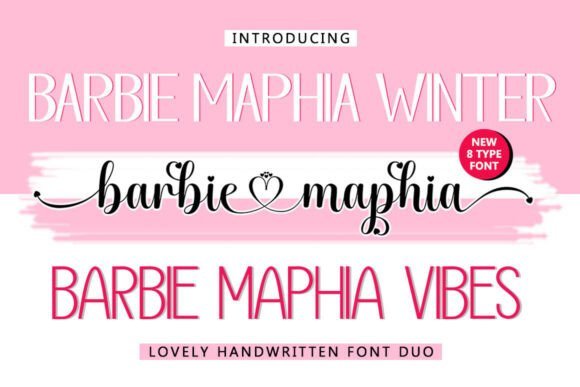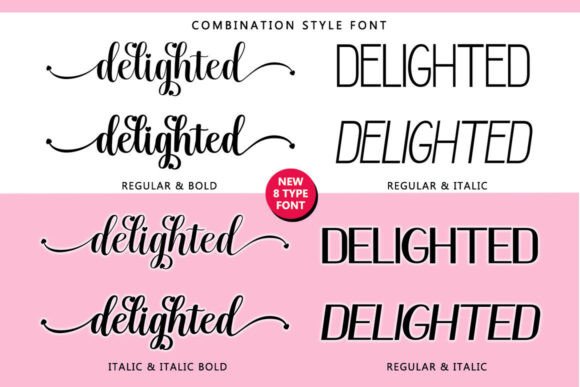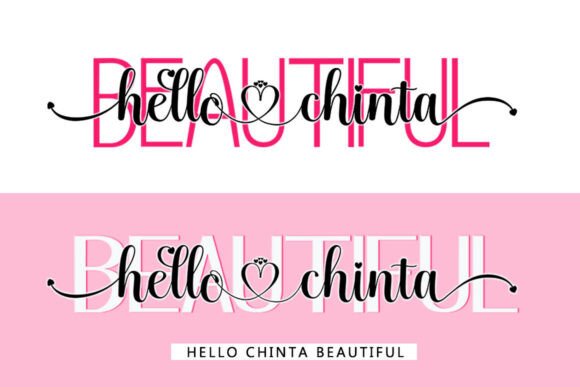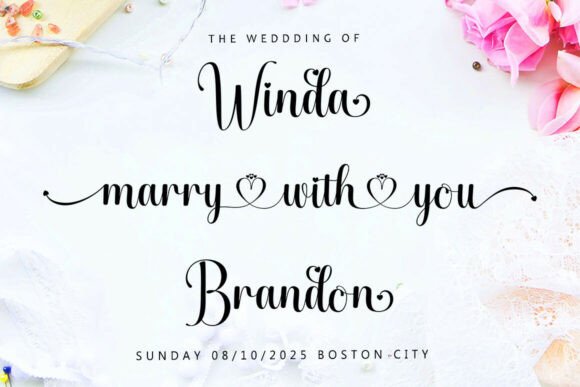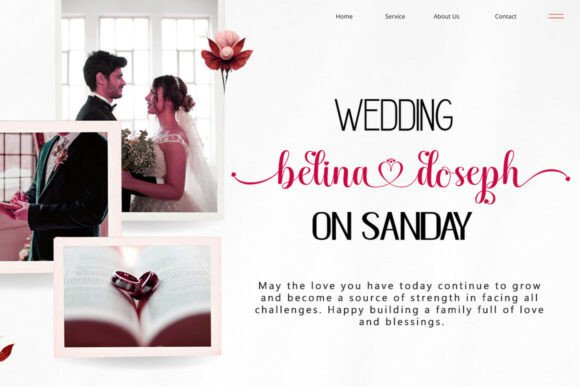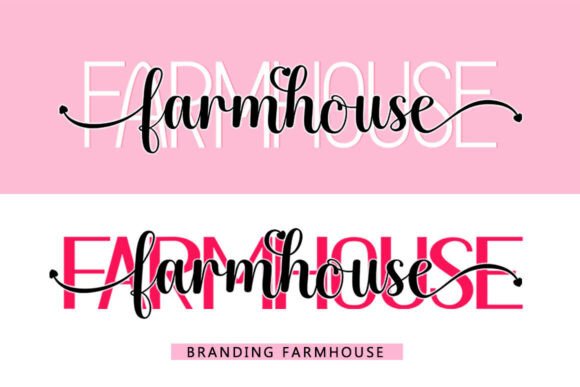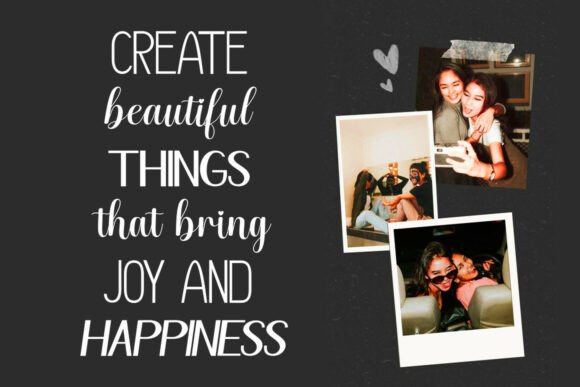
Unleashing the Magic of Barbie Maphia Font
Have you ever stumbled upon a design that immediately sparks your creativity and makes you feel like a kid in a candy store? For designers, this is a moment of pure bliss, and it’s exactly what happens when you lay eyes on the enchanting Barbie Maphia Font. This delightful duo of fonts is a masterful blend of modern and timeless elements, making it the perfect companion for any project that requires a touch of romance and whimsy.
The Barbie Maphia Font is a game-changer for designers, offering a unique combination of bold sans-serif typefaces and elegant, handwritten-style script fonts. This harmonious balance creates a visually appealing look that’s perfect for weddings, invitations, love themes, and feminine branding. Whether you’re a seasoned designer or just starting out, this font duo is sure to inspire your next creative project and leave a lasting impression.
- Font Style: A unique, hand-drawn font with a bold and playful feel, ideal for creative and artistic projects.
- Character Count: 250+ characters, including uppercase and lowercase letters, numbers, and punctuation marks.
- Unique Characteristics: The font features a mix of rounded and angular shapes, with a distinctive ‘barbie-inspired’ aesthetic that adds a touch of whimsy to any design.
Barbie Maphia Font Review
Overall, I was intrigued by the Barbie Maphia Font, but my experience was a mixed bag. Here’s a breakdown of what worked well and what didn’t.
- ✨ Unique and playful style: The font’s quirky, handwritten feel is perfect for adding a touch of whimsy to projects.
- ✨ Good legibility: Despite its decorative nature, the font is surprisingly easy to read, even at smaller sizes.
- ✨ Versatile: The font’s casual, cursive style makes it suitable for a wide range of applications, from social media graphics to wedding invitations.
- ⚠️ Limited font weights and styles: The font only comes in a few weights and styles, which may limit its usability in certain situations.
- ⚠️ Not ideal for body text: While the font is great for headlines and titles, it may not be the best choice for large blocks of body text due to its decorative nature.
- ⚠️ May require adjustments: Depending on the project, you may need to adjust the font size, leading, or spacing to get the best results.
The Barbie Maphia Font is a fun and playful addition to any design project. While it may have some limitations, its unique style and good legibility make it a great choice for certain applications. Just be sure to use it judiciously and adjust as needed to get the best results.
The Barbie Maphia Font is ideal for creating playful and whimsical designs, such as:
Children’s books and educational materials
Party invitations and decorations
Wedding and event stationery
Remember to use the font in moderation and balance it with other design elements to avoid overwhelming the design.